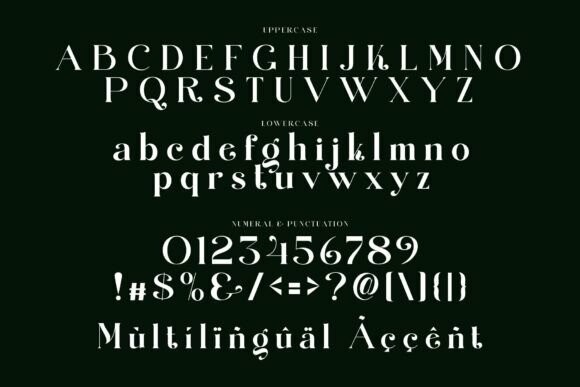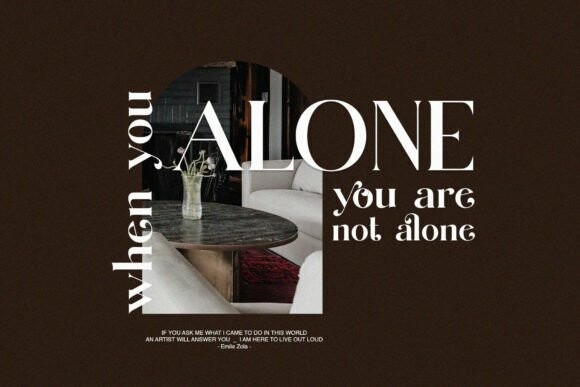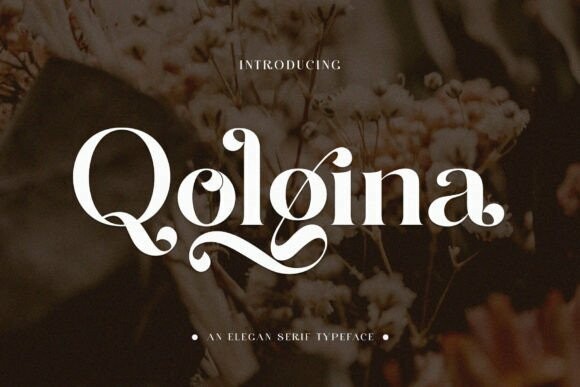
Qolgina Font
Designer: Alfinart
Qolgina Font – Elegant Serif Typeface inspired by the famous minimalist logo perfect for the purposes of designing templates, brochures, videos, advertising branding, logos, invitation, layout design, elegant crafting, beauty design and others.